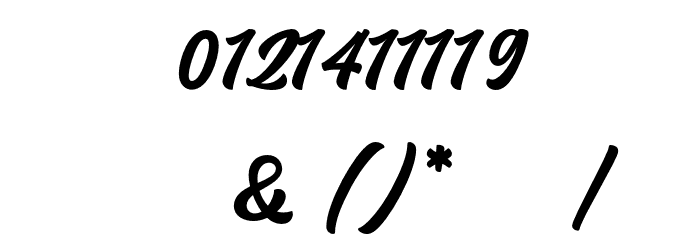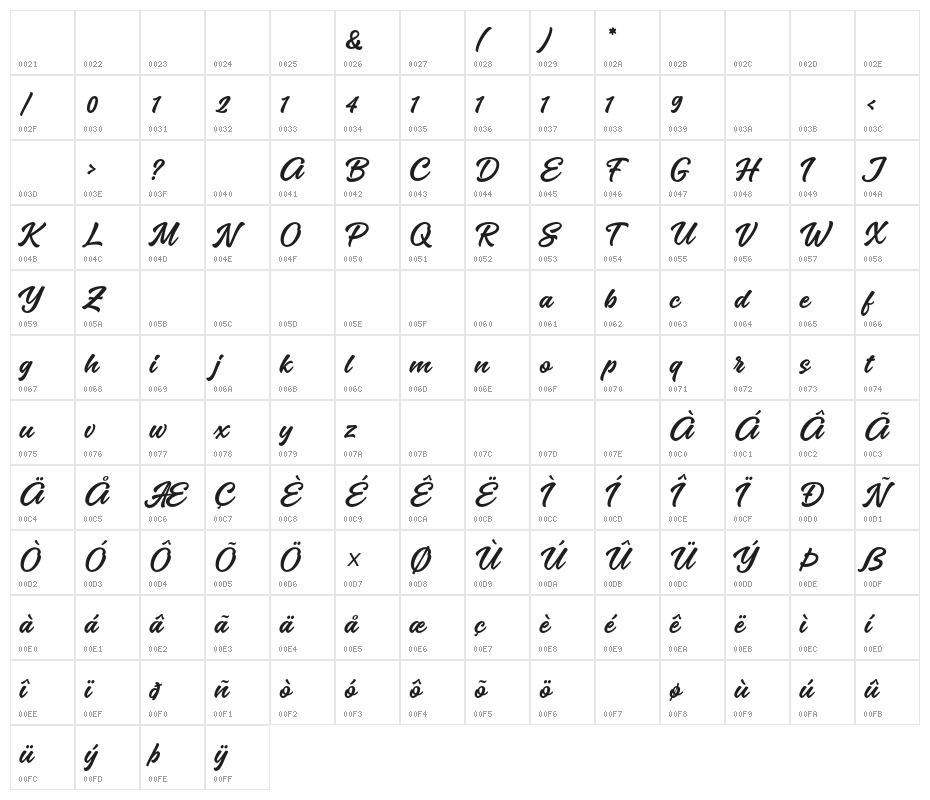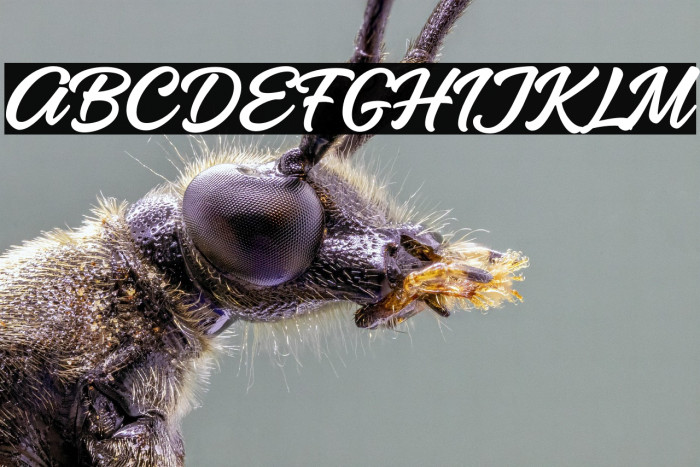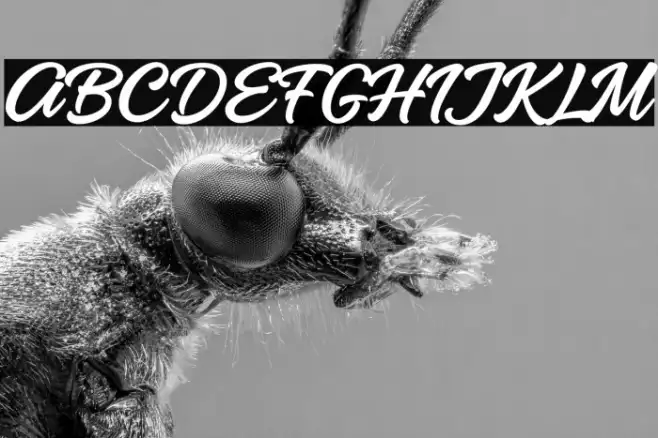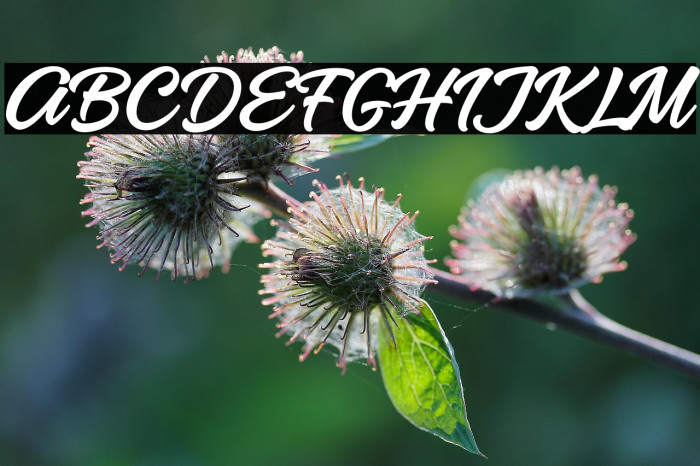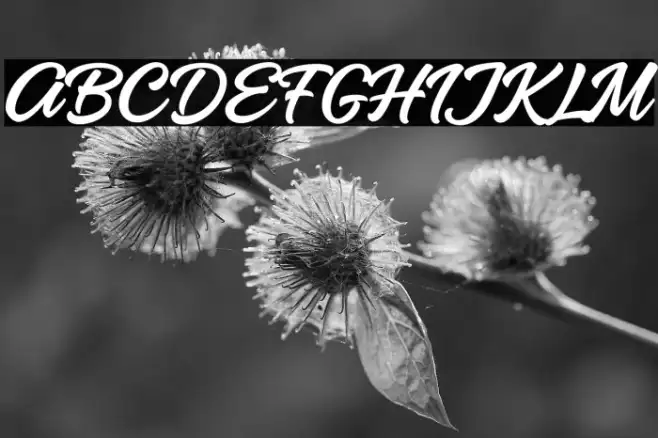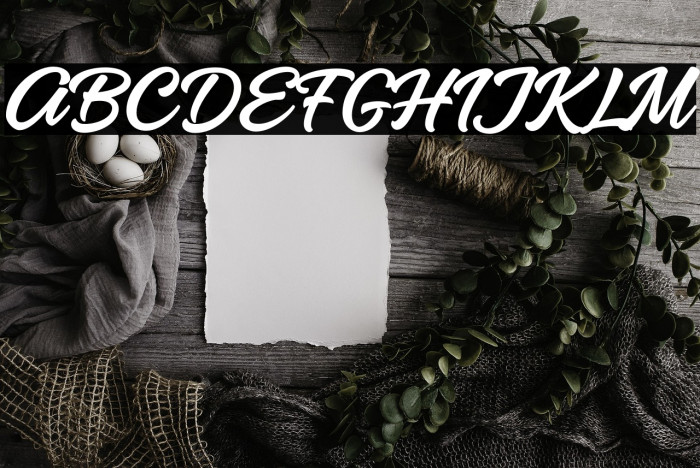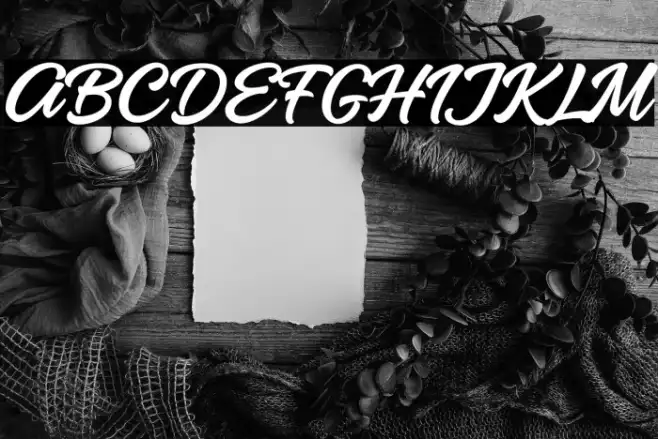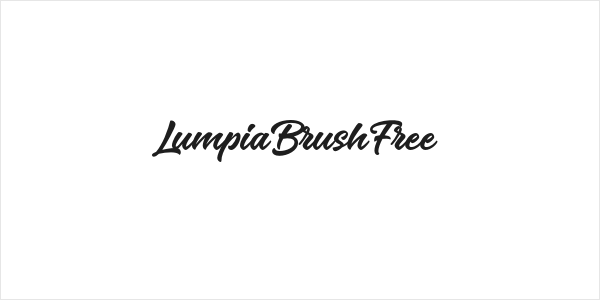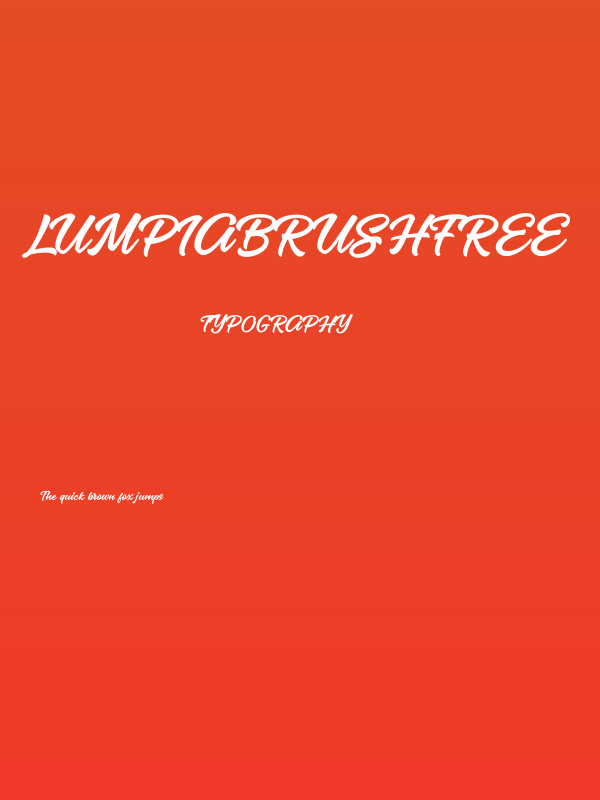
LumpiaBrushFree Font
LumpiaBrushFree Description
This font exudes a lively and dynamic brush script style, characterized by its fluid and cursive letterforms. Each character is crafted with a sense of motion, featuring smooth curves and varying stroke widths that mimic the natural flow of handwriting. The uppercase letters are bold and expressive, while the lowercase letters maintain a consistent rhythm, enhancing readability. The numerals and special characters are designed to complement the overall aesthetic, ensuring a cohesive look across all text elements. This font is ideal for projects that require a personal touch, such as invitations, greeting cards, and branding materials.
| Proposed Projects | Ideal for invitations, greeting cards, branding, and personal projects. |